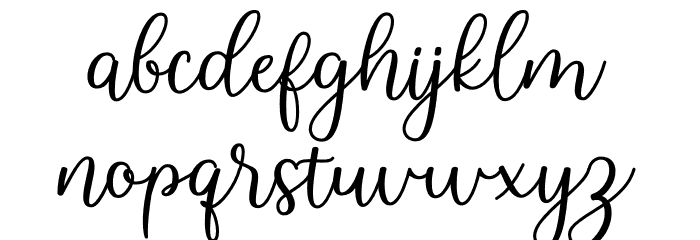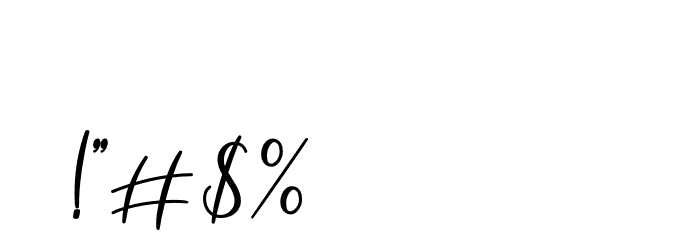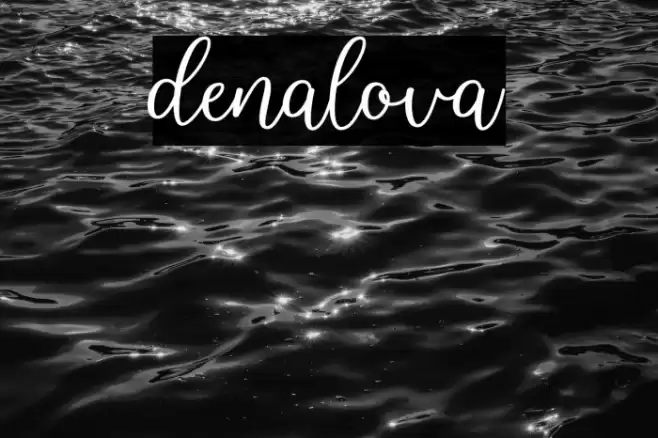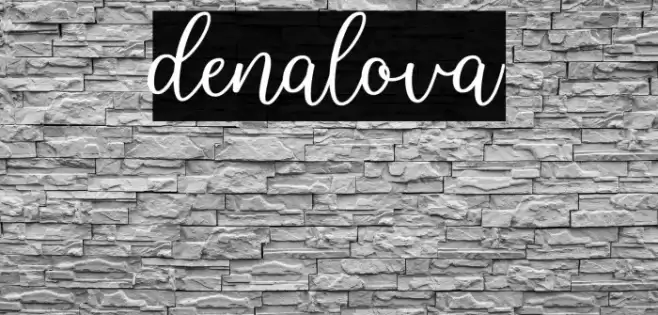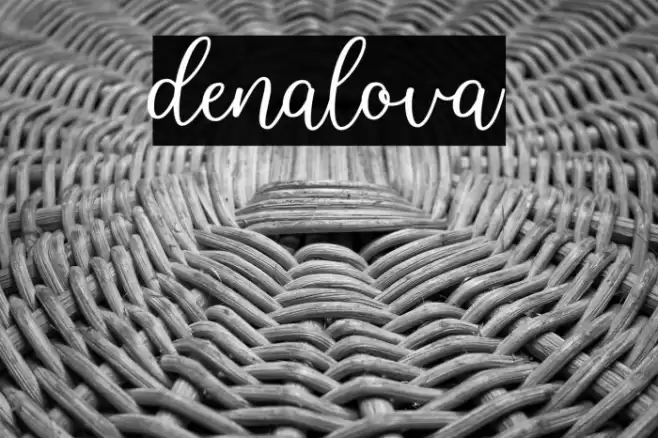
denalova Font
This elegant script font features flowing, cursive letters with a graceful and sophisticated appearance. The uppercase letters are slightly larger and more ornate, while the lowercase letters maintain a consistent, smooth flow. The font exhibits a harmonious balance between thick and thin strokes, giving it a refined and stylish look. The special characters are designed to complement the overall aesthetic, adding a touch of flair. This font is perfect for projects that require a personal, handwritten touch, such as invitations, greeting cards, and branding materials.
A graceful and elegant script font with flowing cursive letters.
- Proposed Projects: Ideal for wedding invitations, greeting cards, branding, and elegant signage.
- Overall Style: Elegant
- Use Case: Logos, Invitations, Greeting Cards